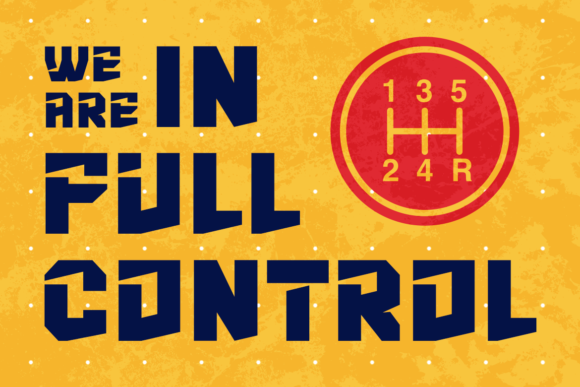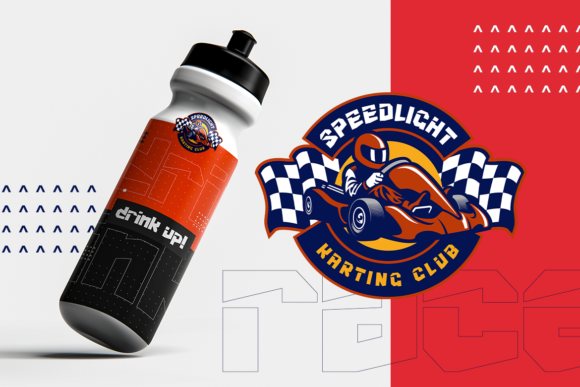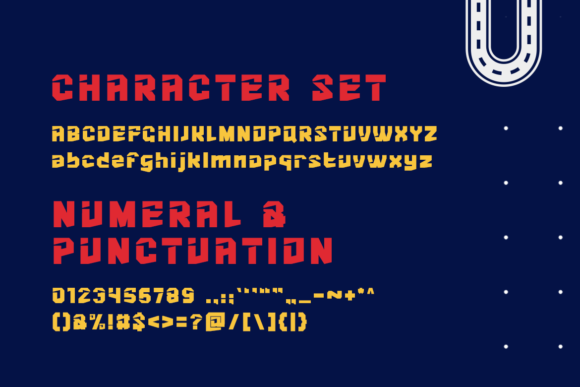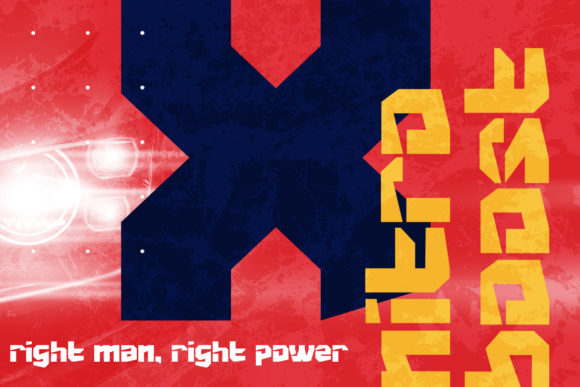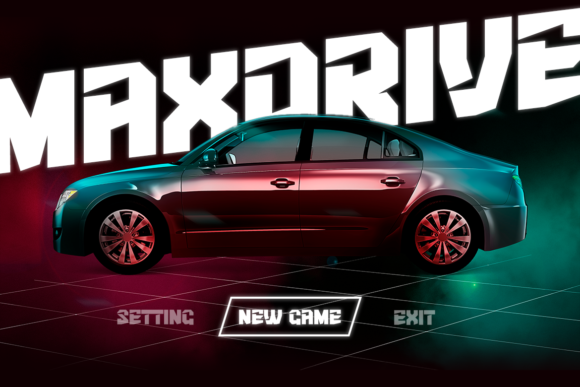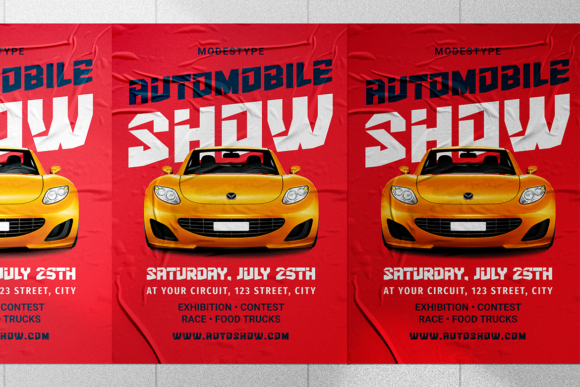
Unleash Your Creativity with Drift Master Font: The Ultimate Guide
Are you a designer, craftsperson, or simply a creative enthusiast looking for a font that can elevate your visual projects to the next level? Look no further than Drift Master Font, a cool and futuristic display font that’s perfect for a wide range of applications. In this comprehensive guide, we’ll explore the features, benefits, and uses of Drift Master Font, and show you how to make the most of this versatile and stylish font.
What is Drift Master Font?
Drift Master Font is a modern, sans-serif display font designed to make a statement. Its sleek, futuristic lines and curves make it perfect for projects that require a bold, eye-catching look. Whether you’re creating a poster, a social media graphic, or a YouTube thumbnail, Drift Master Font is sure to grab attention and leave a lasting impression.
Key Features of Drift Master Font
- Cool and Futuristic Design: Drift Master Font boasts a unique, cutting-edge design that’s sure to set your projects apart from the crowd.
- Highly Versatile: This font is perfect for a wide range of applications, from online games and event posters to school supplies and movie titles.
- Easy to Read: Despite its bold, futuristic design, Drift Master Font remains highly legible, even at smaller sizes.
- Customizable: With its wide range of weights and styles, Drift Master Font can be tailored to suit your specific design needs.
Uses of Drift Master Font
Drift Master Font is an incredibly versatile font that can be used in a wide range of creative projects. Here are just a few ideas to get you started:
- Online Games: Add a touch of futurism to your game titles, menus, and UI elements with Drift Master Font.
- Event Posters: Create eye-catching posters for teens’ events, concerts, and festivals with this bold and stylish font.
- School Supplies: Add a fun, modern touch to your school supply designs, such as notebooks, pencils, and folders.
- Movie Titles: Use Drift Master Font to create bold, attention-grabbing movie titles and taglines.
- YouTube Covers and Thumbnails: Stand out on YouTube with custom covers and thumbnails that showcase your brand and style.
- Social Media Page Covers: Elevate your social media presence with custom page covers that reflect your brand’s personality.
Tips for Using Drift Master Font
To get the most out of Drift Master Font, here are a few tips to keep in mind:
- Experiment with Different Weights and Styles: Drift Master Font comes in a range of weights and styles. Experiment with different variations to find the one that works best for your project.
- Combine with Other Fonts: Don’t be afraid to combine Drift Master Font with other fonts to create a unique and visually appealing design.
- Pay Attention to Legibility: While Drift Master Font is highly legible, it’s still important to ensure that your text is clear and easy to read, especially at smaller sizes.
| Font Name | Drift Master Font |
| Author | Modestype Studio |